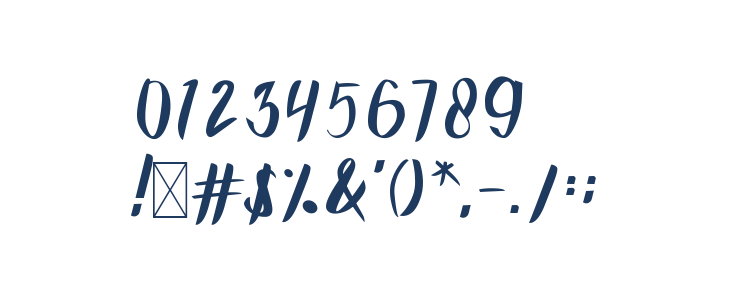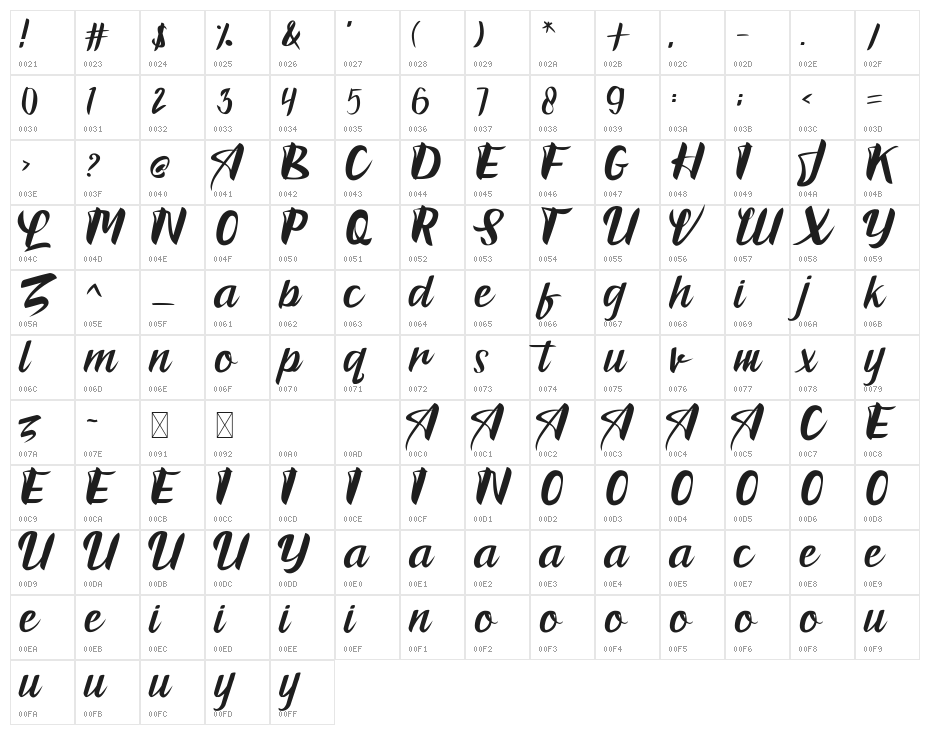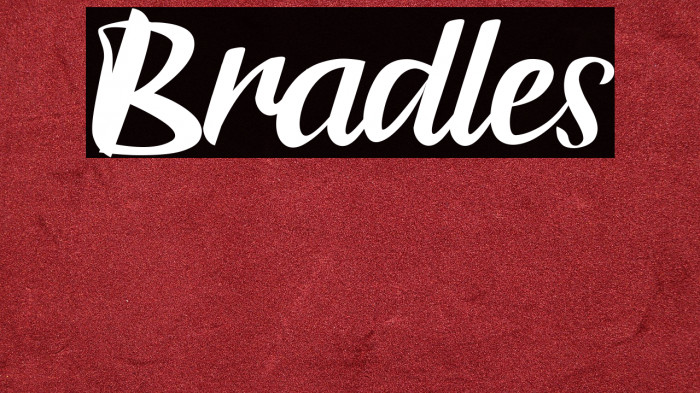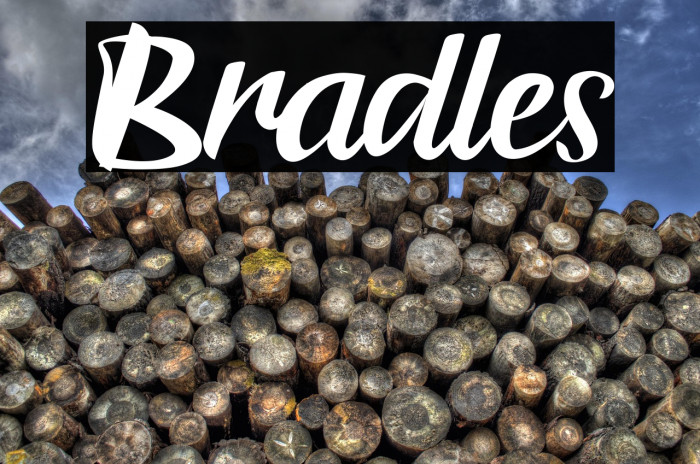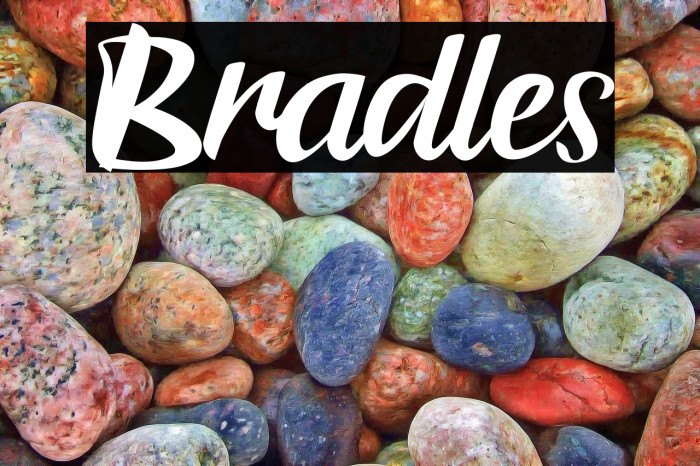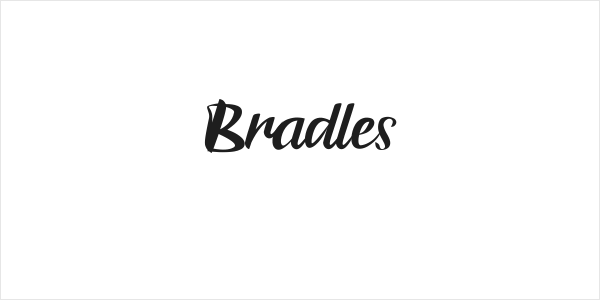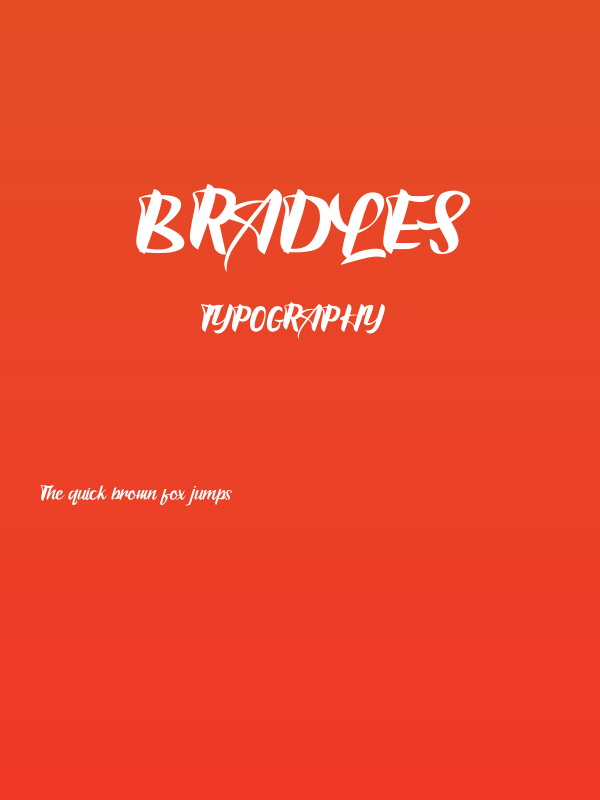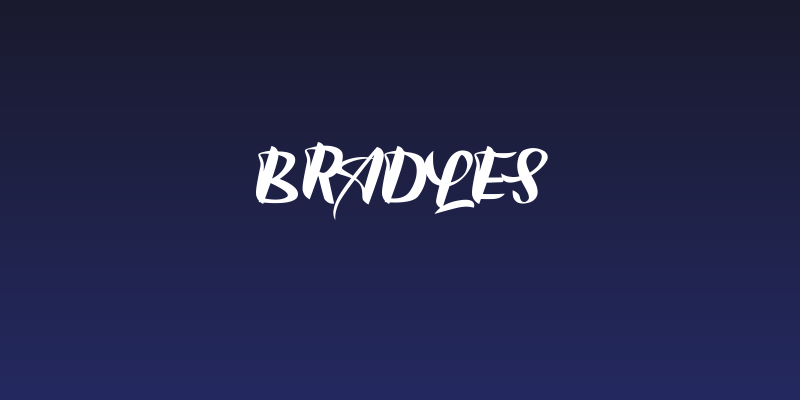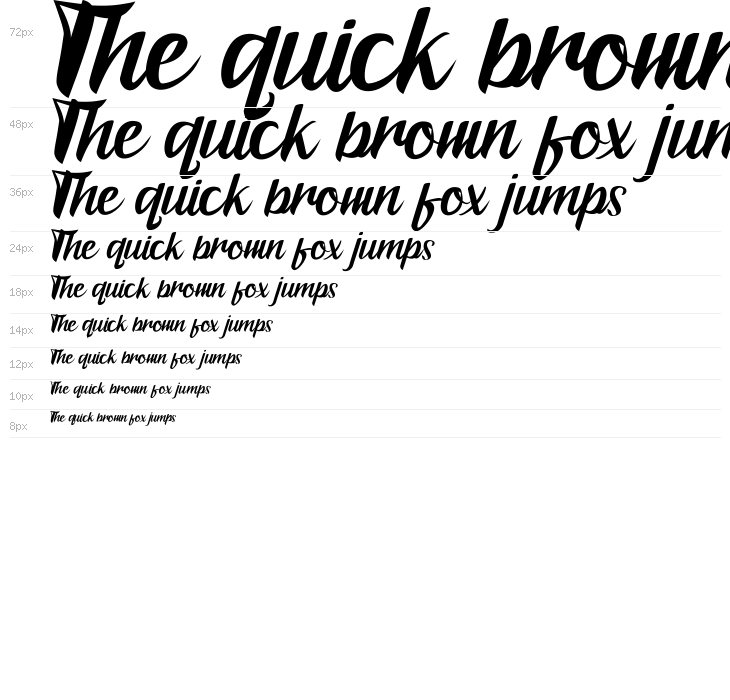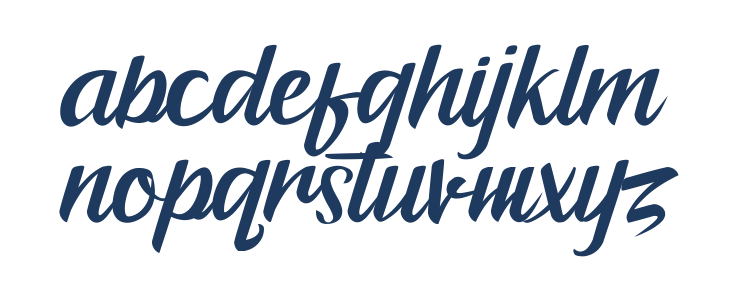
Bradles Font
Bradles Description
This font exudes a dynamic and energetic style, characterized by its bold, flowing script that mimics the fluidity of handwriting. The uppercase and lowercase letters are designed with a consistent slant, giving the text a sense of motion and elegance. The strokes are thick and confident, with a slight variation in width that adds a touch of sophistication. The numerals and special characters maintain the same lively aesthetic, ensuring a cohesive look across all text elements. This font is perfect for projects that require a personal touch, such as invitations, greeting cards, or branding materials that aim to convey creativity and flair.